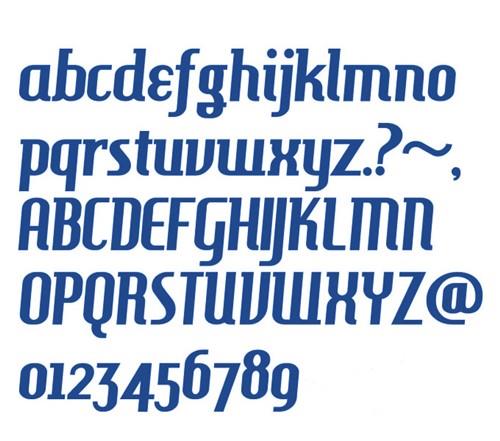
Fast & Furious Embroidery Font - Modern Bold Lettering - PES, DST & 8 formats by Unicorn Creatives and other embroidery fonts available at EmbroideryDesigns.com.
Unicorn Creatives is happy to present Fast & Furious Embroidery Font - Modern Bold Lettering - PES, DST & 8 formats machine embroidery font which has Dynamic machine embroidery font featuring bold letters with contrasting colors, perfect for sports gear and promotional items. Ideal for hats and jackets. Available in PES, DST, and 8 other formats. included. If you would like to view more embroidery fonts and alphabets please search our embroidery fonts page.